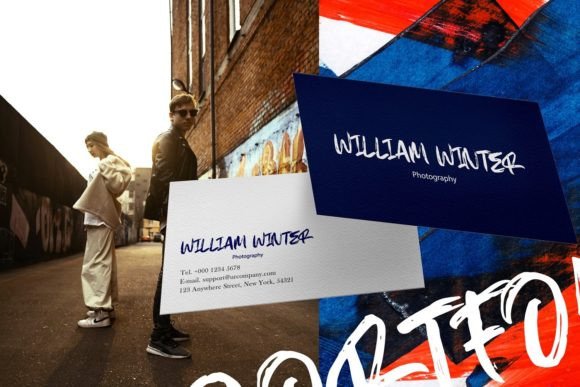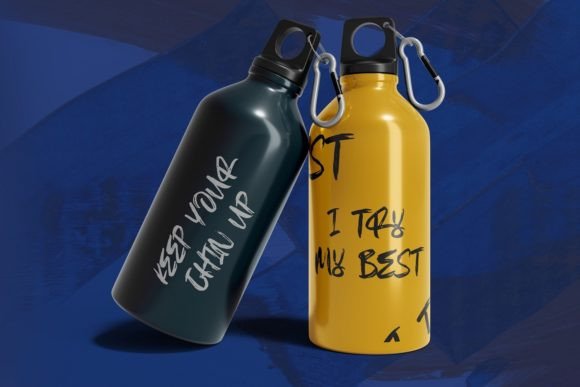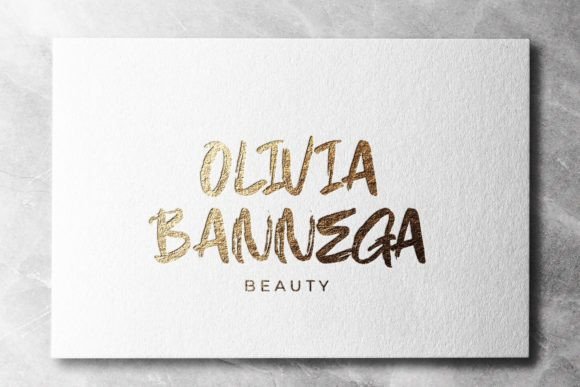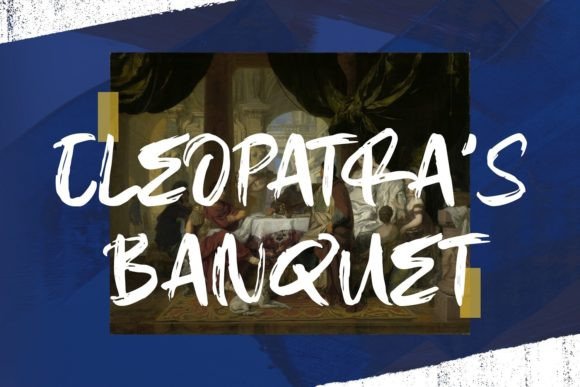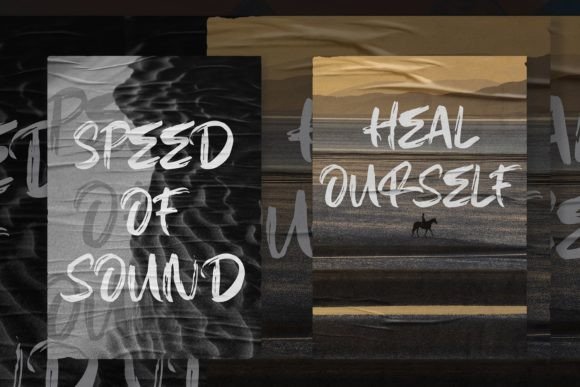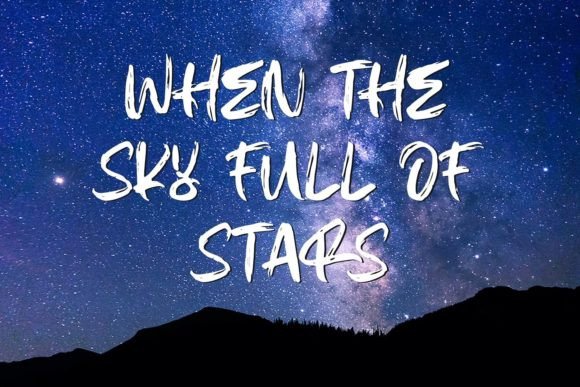
Unleashing Creativity with the Epical Glory Font
Have you ever found yourself staring at a blank canvas, waiting for that spark of inspiration to strike? For designers, this moment can be both exhilarating and intimidating. The blank slate is a chance to create something truly unique, but it can also be a daunting task to bring a vision to life. That’s where the right font can make all the difference.
Introducing the Epical Glory Font, a flowing and stylish textured display brush font that’s sure to add a touch of elegance to any design. Created with the help of a brush pen, this font is perfect for designers looking to add a personal touch to their work. With its unique and beautiful style, the Epical Glory Font is a valuable addition to any designer’s toolkit, allowing them to bring their creative vision to life in a way that’s both authentic and captivating.
Epical Glory Font Key Features
- Unique Characteristics: Features an elegant, modern design with subtle flair and ornamentation, making it perfect for creating eye-catching headings and titles.
Epical Glory Font Review
Overall, I was quite excited to dive into the Epical Glory Font, but my experience was a mixed bag. Let’s break it down.
- The font’s bold and majestic feel is perfect for making a statement, especially in titles and headings.
- The custom-designed characters add a unique touch to the overall aesthetic.
- The font’s ability to scale well across various sizes and resolutions is impressive.
- The font’s readability suffers at smaller font sizes, which might be a concern for body text.
- The character set is limited, which may not be suitable for languages that require a broader character range.
- The font’s compatibility with certain operating systems and software can be finicky.
While Epical Glory Font excels in certain areas, its limitations hold it back from being a go-to choice for everyday use. However, for specific projects where a bold, custom font is needed, it might be worth considering. With some adjustments and refinements, I believe this font has the potential to be truly epic.
Practical Application Guide for Epical Glory Font
For optimal results, use Epical Glory Font for headings and titles to add a touch of elegance and sophistication. It’s ideal for:
– Movie posters and trailers
– Video game titles and logos
– Book covers and author branding
– Corporate identity and branding materials
To get the most out of Epical Glory Font, experiment with different font sizes, colors, and effects to create a unique and eye-catching visual identity. You can also combine it with other fonts to create a harmonious and balanced design.
Alternatives to Epical Glory Font
Great Vibes Font is a beautiful, elegant script font suitable for formal invitations, wedding cards, and other special occasions. It features flowing lines, ornate details, and a touch of sophistication.
Compared to Epical Glory Font, Great Vibes Font is more refined and less dramatic. While Epical Glory Font is bold and attention-grabbing, Great Vibes Font is more understated and elegant.
Carolyna Pro Font is a modern, sophisticated serif font ideal for luxury branding, high-end packaging, and upscale marketing materials. It features clean lines, elegant curves, and a sense of refinement.